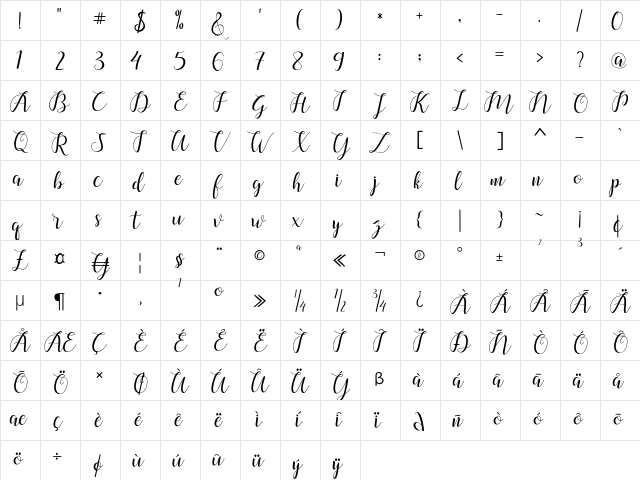
chalala script
| Style | script |
| Foundry | mrletters_muhammad rizal |
| Designer | mrletters_muhammad rizal |
Design Context for chalala Typeface
chalala brings a calligraphic fluidity to the page — its connecting strokes and expressive curves give it an unmistakably human quality.
Font Pairing: Combine chalala with a simple geometric sans for maximum contrast — the tension between flowing curves and clean structure is a classic typographic pairing.
Pro Tip: Use chalala for short runs of text — names, titles, or taglines. Extended body copy in script faces tires the eye quickly.